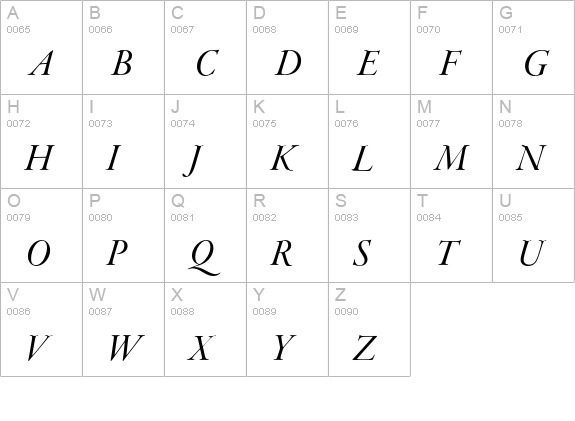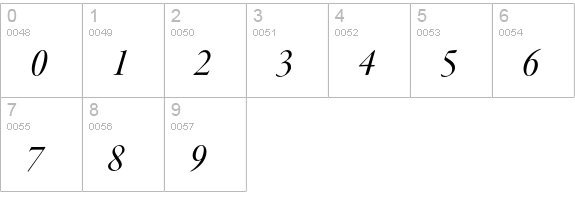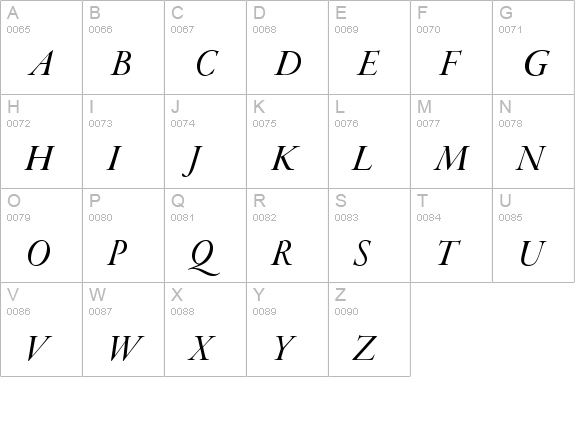
Garamond Premier Pro Medium Italic Display is a balanced, medium-weight, italic variant in the Garamond typeface family \xE2\x80\x94 well suited to sub-headlines, navigation, and balanced editorial work.
Garamond Premier Pro Medium Italic Display font is a sophisticated and elegant typeface that exudes a timeless charm. Its medium weight and italic style make it ideal for adding a touch of flair and refinement to any design project. The delicate curves and graceful letterforms of this font create a sense of sophistication and creativity. What makes Garamond Premier Pro Medium Italic Display font even more appealing is that it is available for free download at FontsMarket.com. This means that you can easily access this premium quality font without any cost, making it a valuable addition to your font collection. Whether you are working on a branding project, editorial design, or any other creative endeavor, Garamond Premier Pro Medium Italic Display font will elevate your work with its distinctive style and versatility.